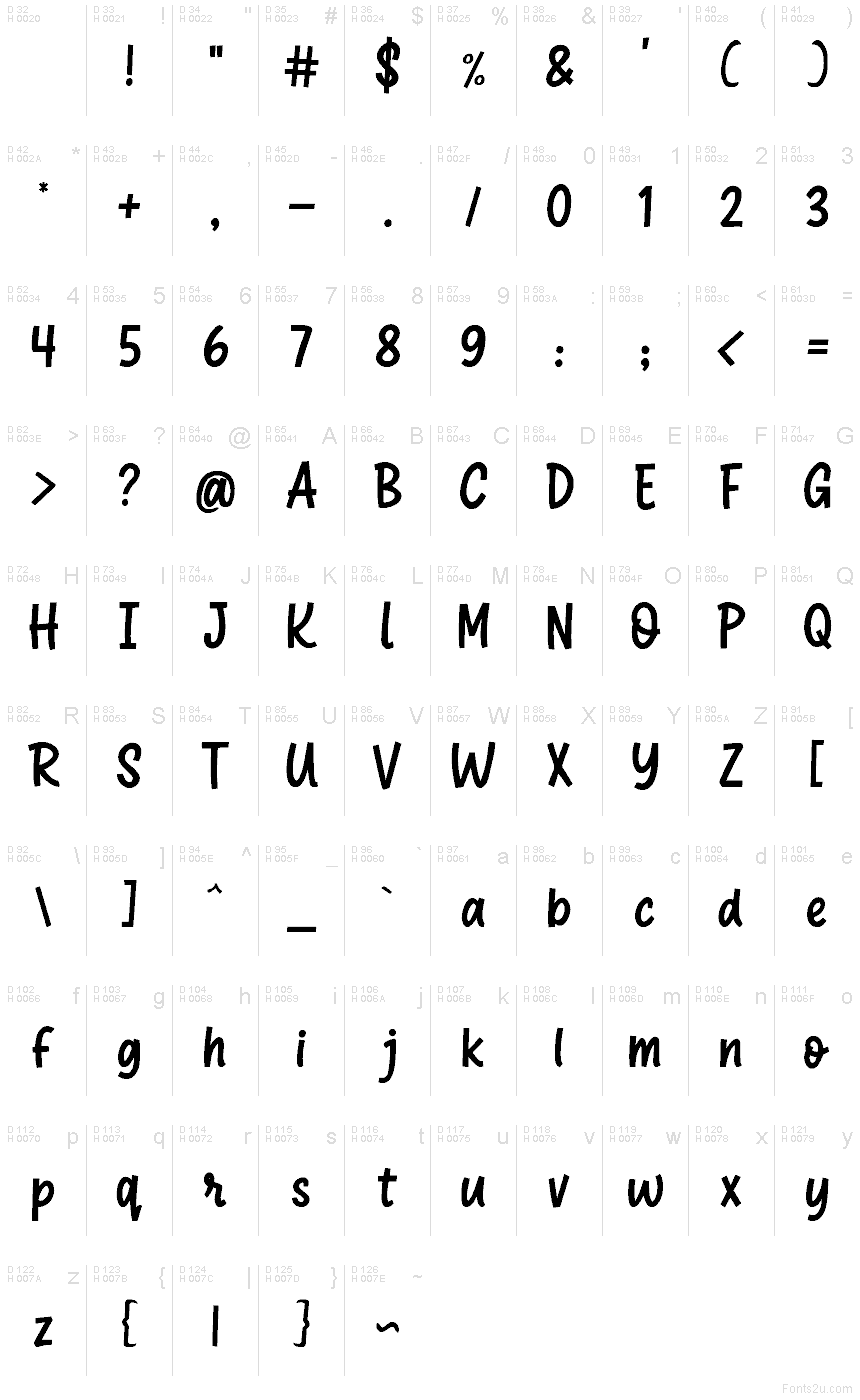
Golden Motion font by BlackFridayFont FMF is a free brush script display typeface that solves the gap between playful personality and clear readability. Its inky, hand-painted strokes lean forward with a gentle slant, giving every word a sense of movement without sliding into chaos. Letters connect loosely, with rounded shapes and slightly uneven heights that feel human and energetic, yet the spacing stays open enough for quick scanning on screens and posters.
Using Golden Motion, you can bring a lively, crafted feel to logos, packaging, YouTube covers, event posters, café menus, and social media graphics. This free font shines when set large, where the thick, textured curves can really breathe; pair it with a clean, narrow sans serif for body copy to keep layouts balanced and easy to read.